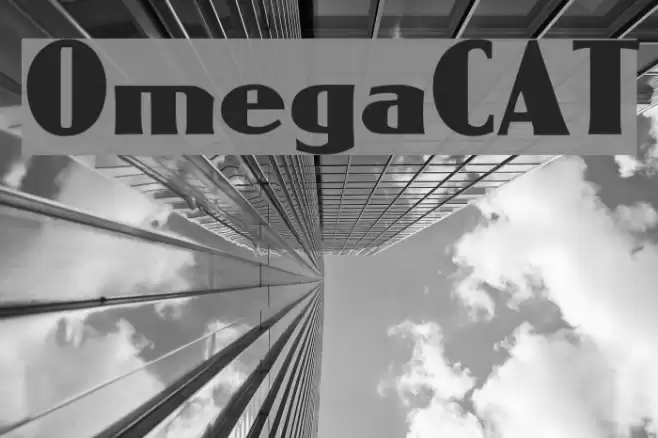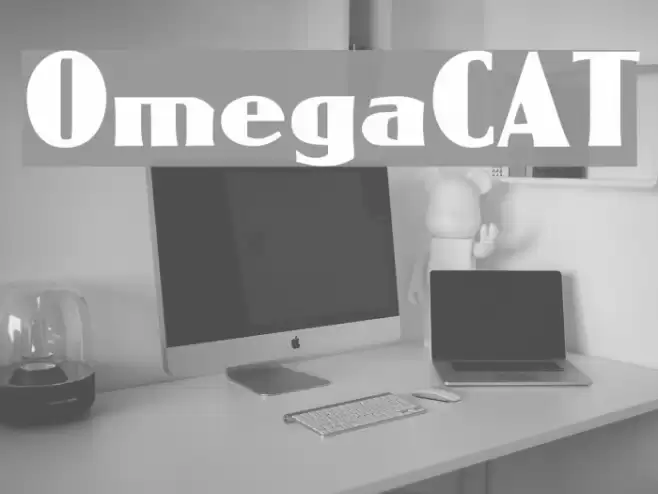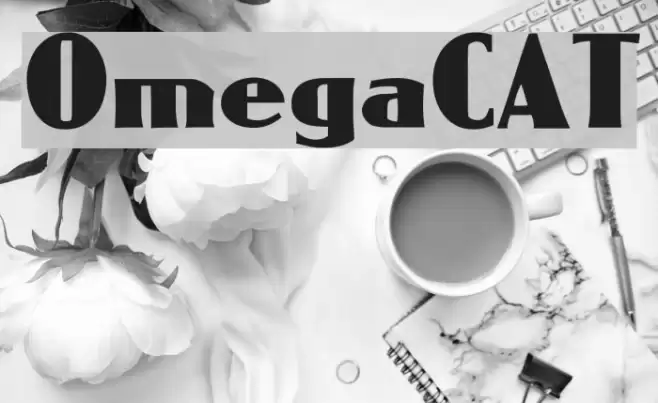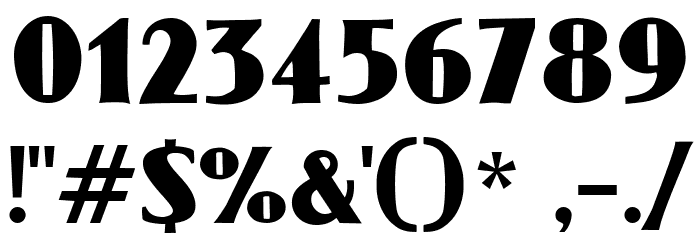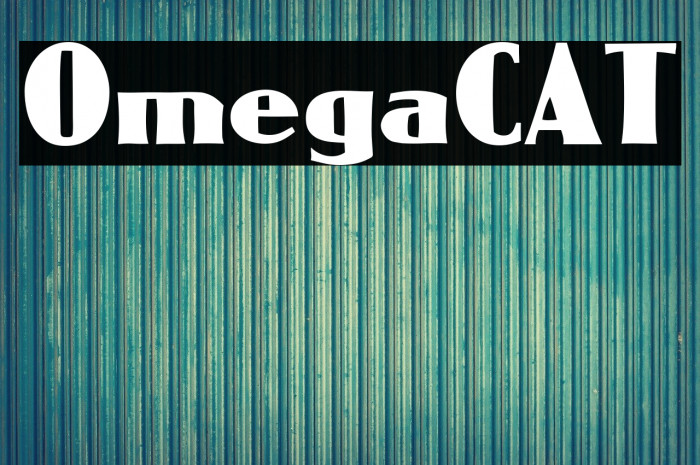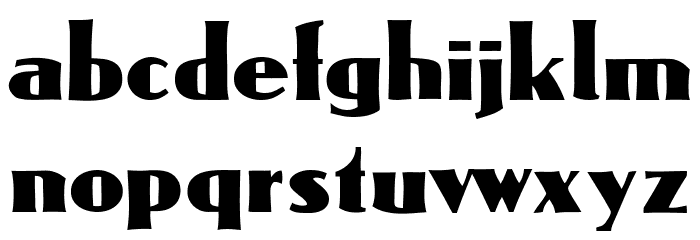
OmegaCAT Font
OmegaCAT Description
This font features a bold and dramatic style with a strong presence. The uppercase letters are characterized by thick, angular strokes and sharp serifs, giving them a commanding appearance. The lowercase letters maintain a similar boldness, with unique curves and angles that add a touch of elegance. The numerals are equally bold, ensuring they stand out in any design. The special characters are crafted with the same attention to detail, making them perfect for a variety of uses. Overall, this font exudes a sense of strength and sophistication, making it ideal for impactful headlines and branding.
A bold, serif font with dramatic, angular strokes and sharp serifs from Uncategorized fonts.